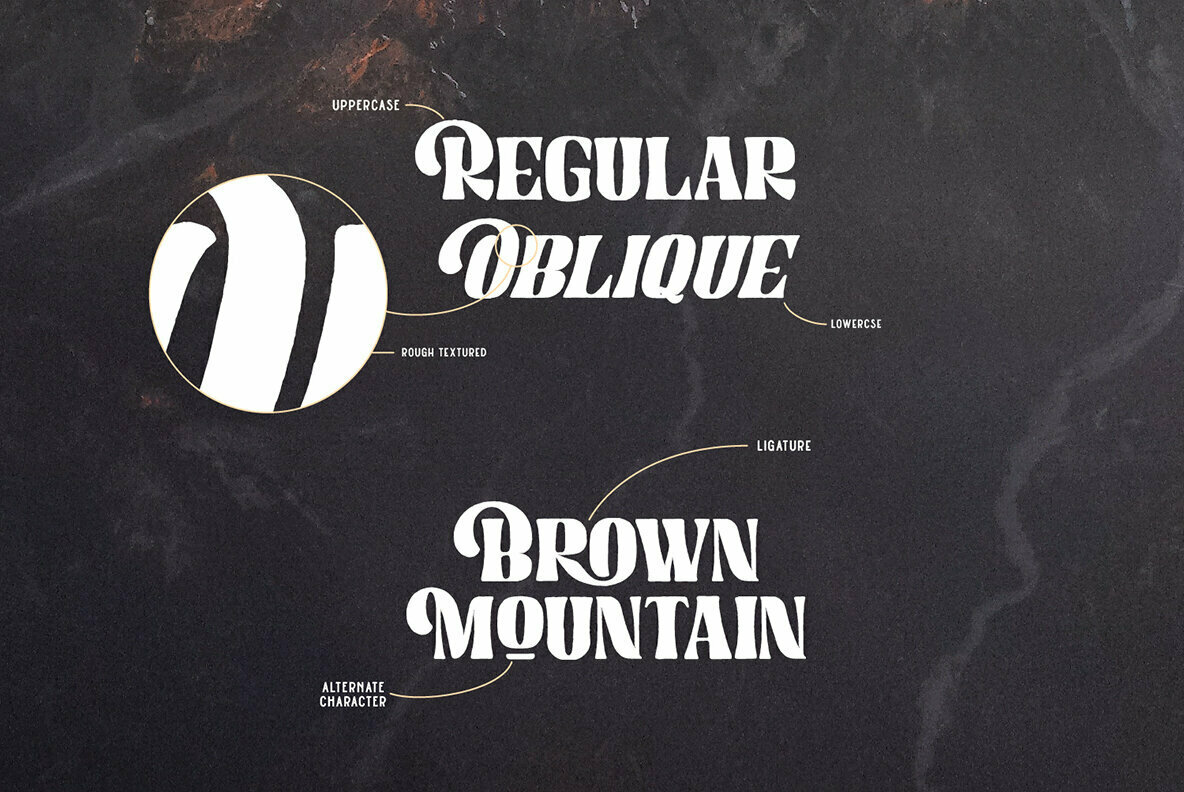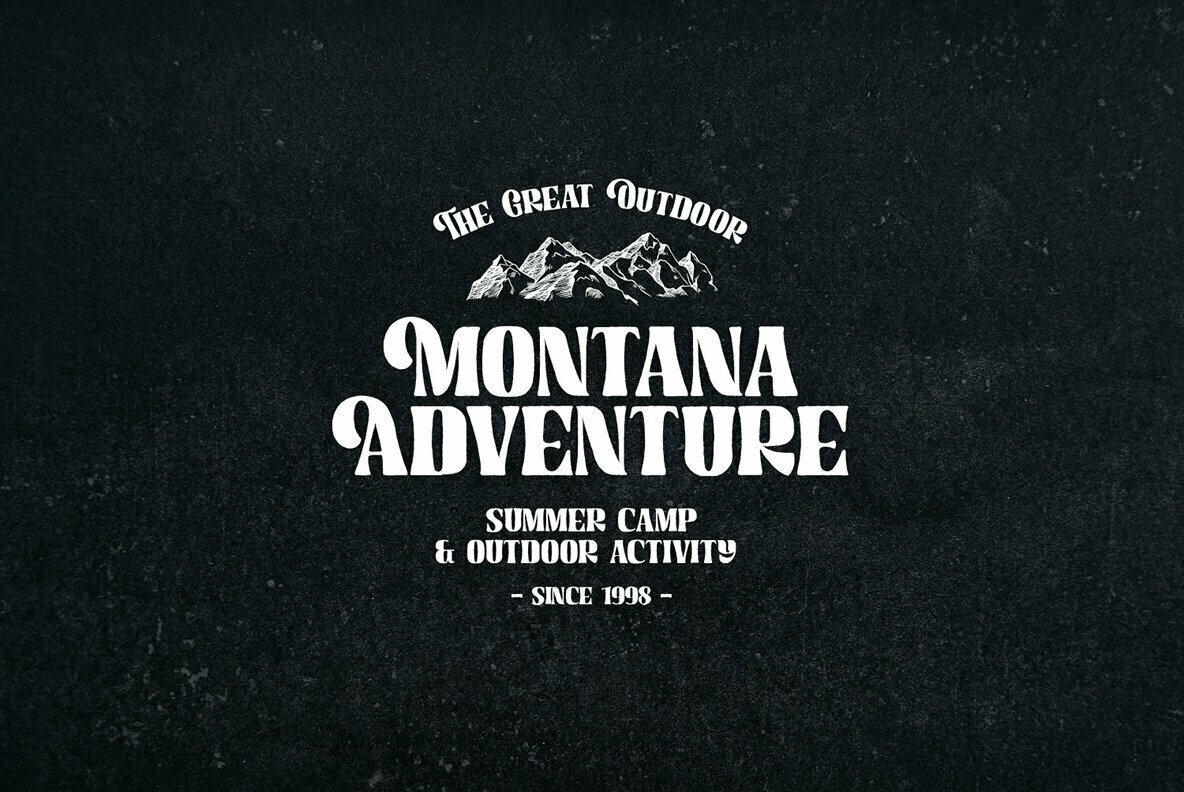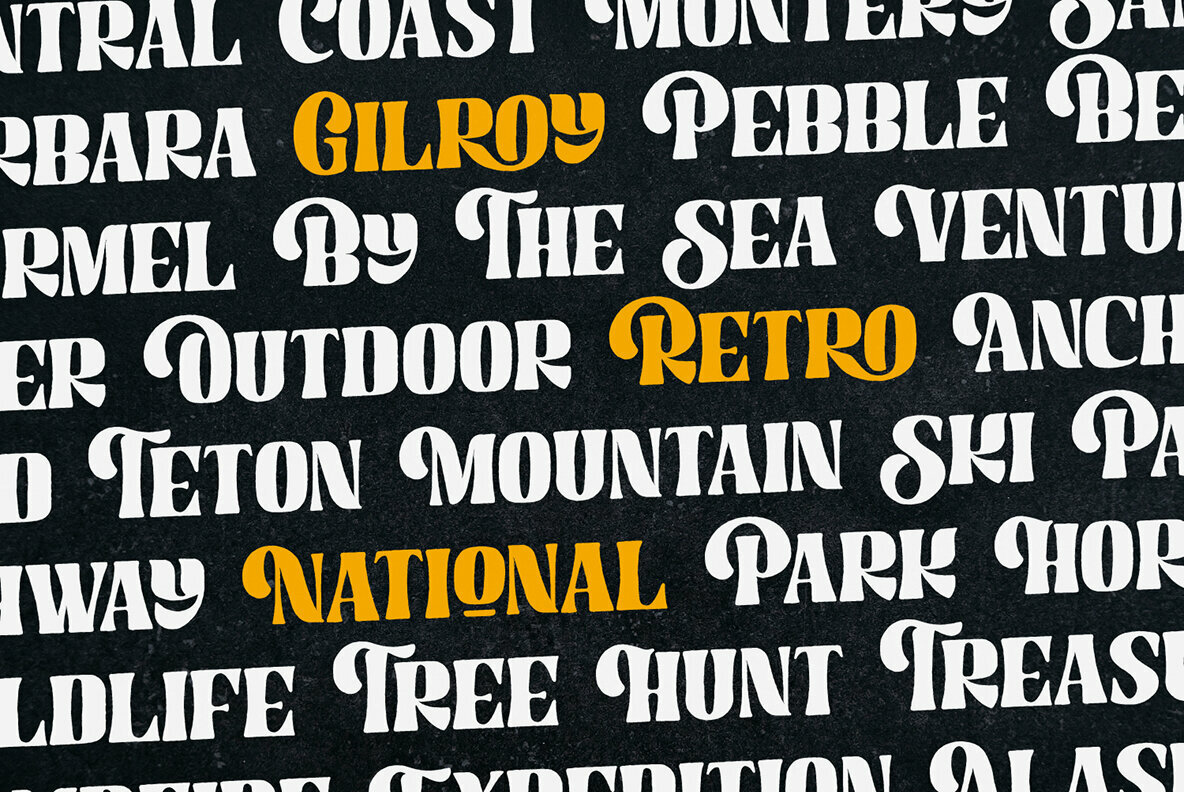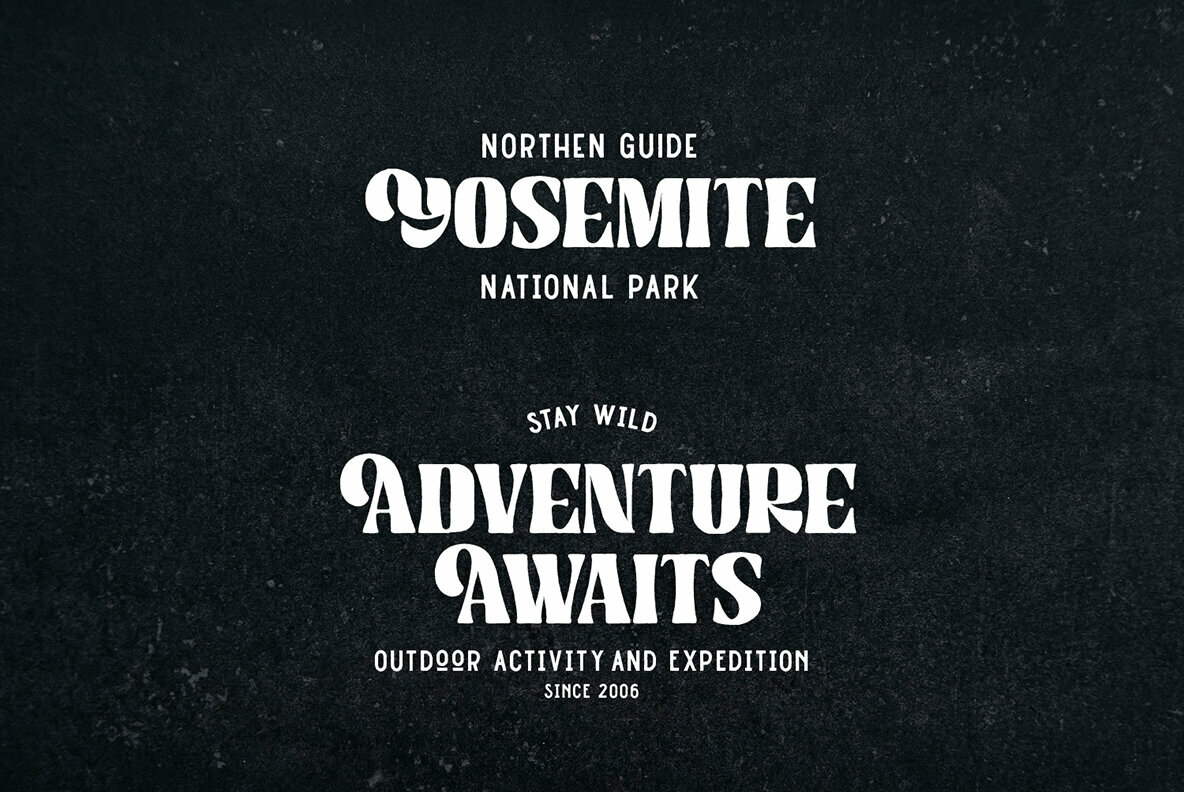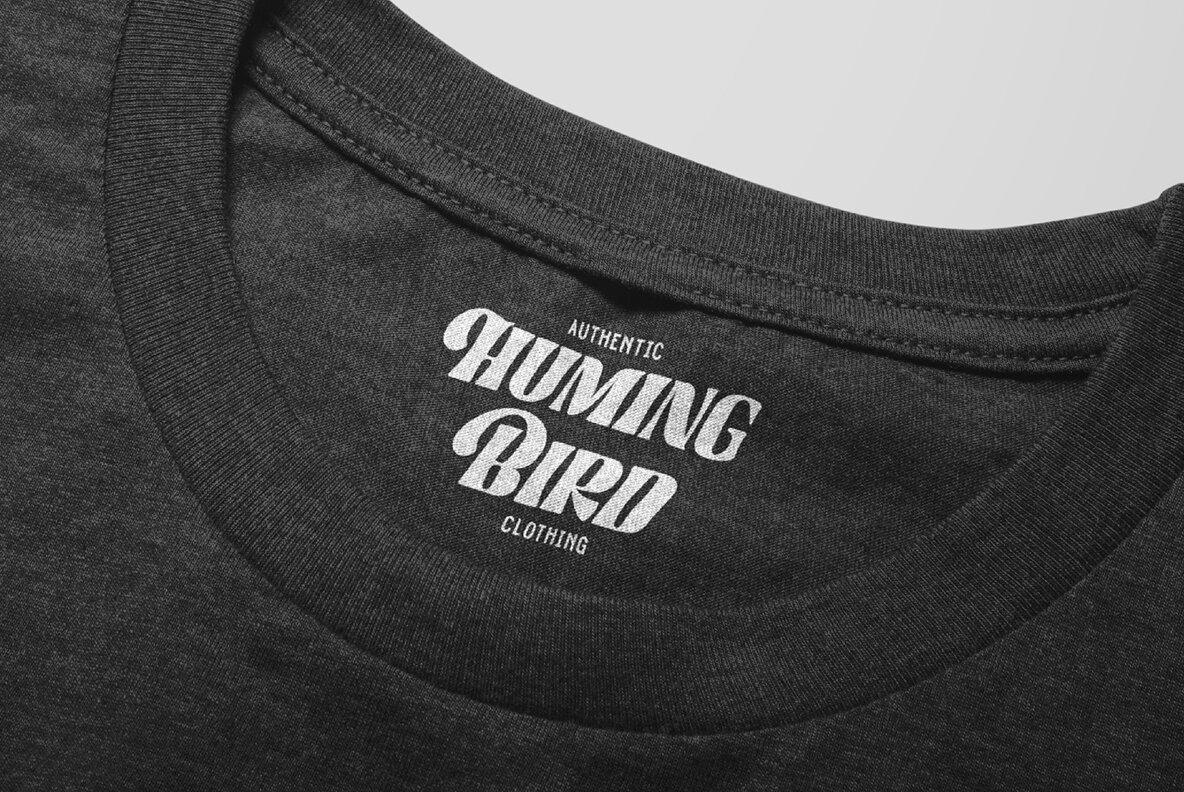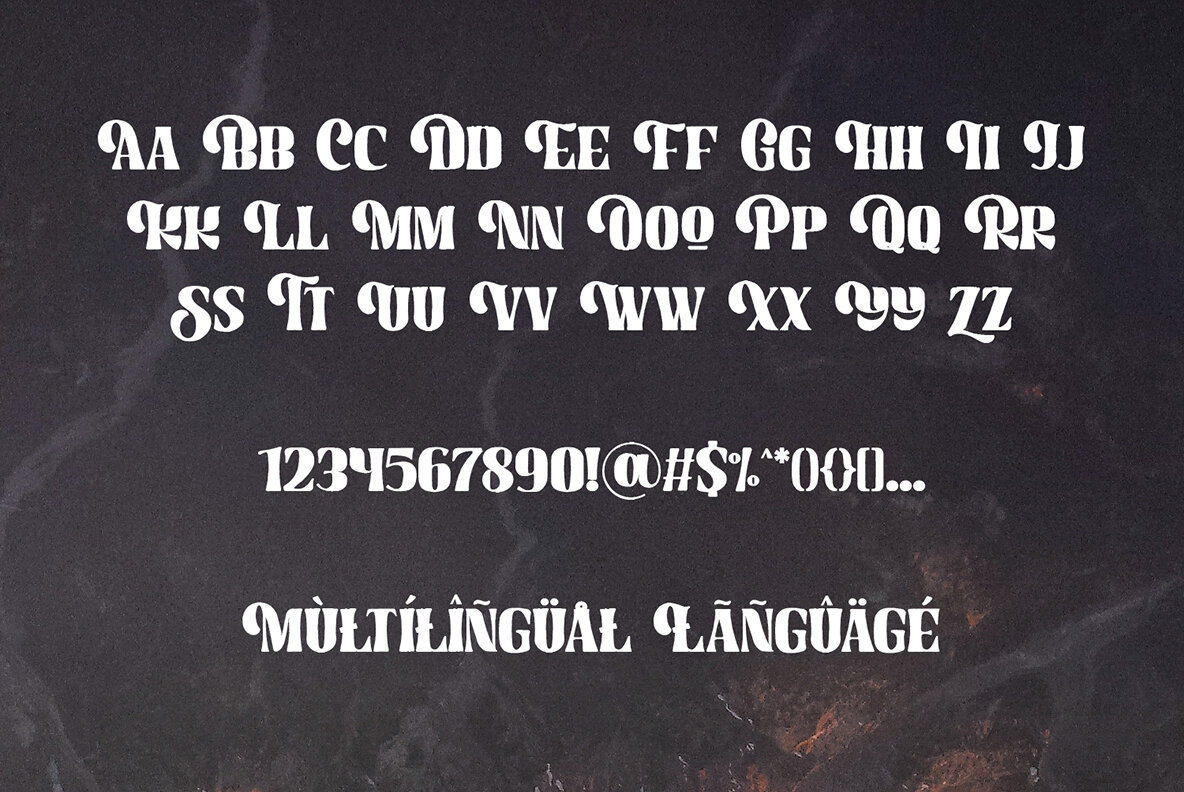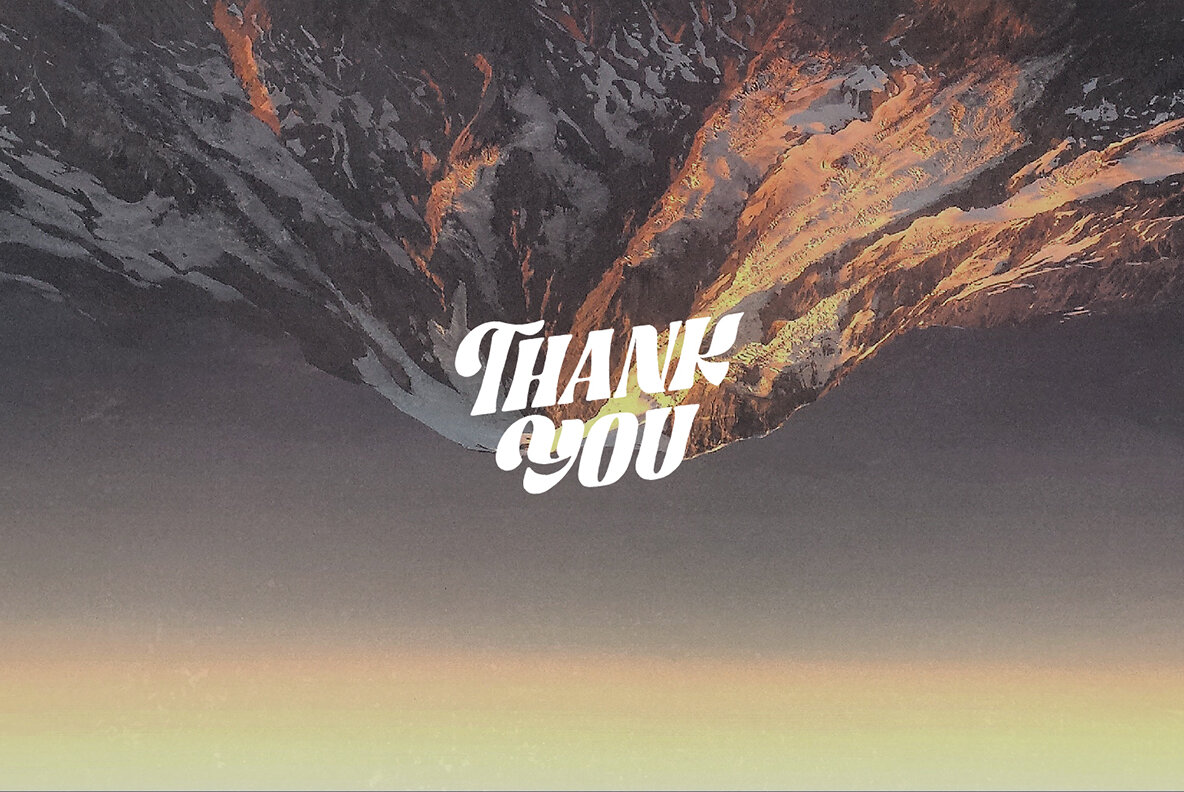
Great Mammoth Font
Great Mammoth Regular
Great Mammoth Oblique
The Great Mammoth is a unique typeface, exuding a bold, vintage flair characterized by its high-contrast design. This type brings a handcrafted touch, reminiscent of bygone eras, making it ideal for projects that seek a retro aesthetic. From logos to merchandise, it lends itself seamlessly to various design themes, especially those centered around adventure and nostalgia. Features:Great Mammoth: Bold Vintage Typeface With Contrast